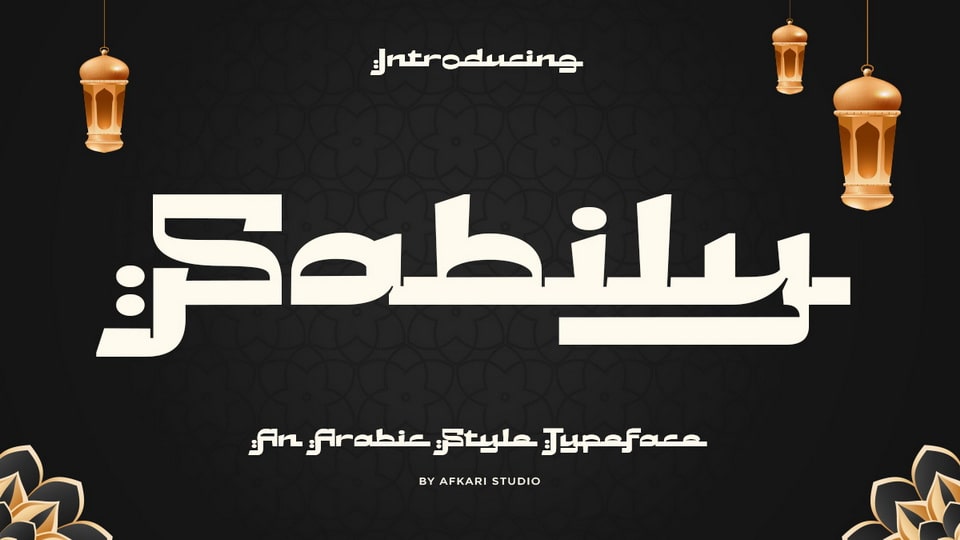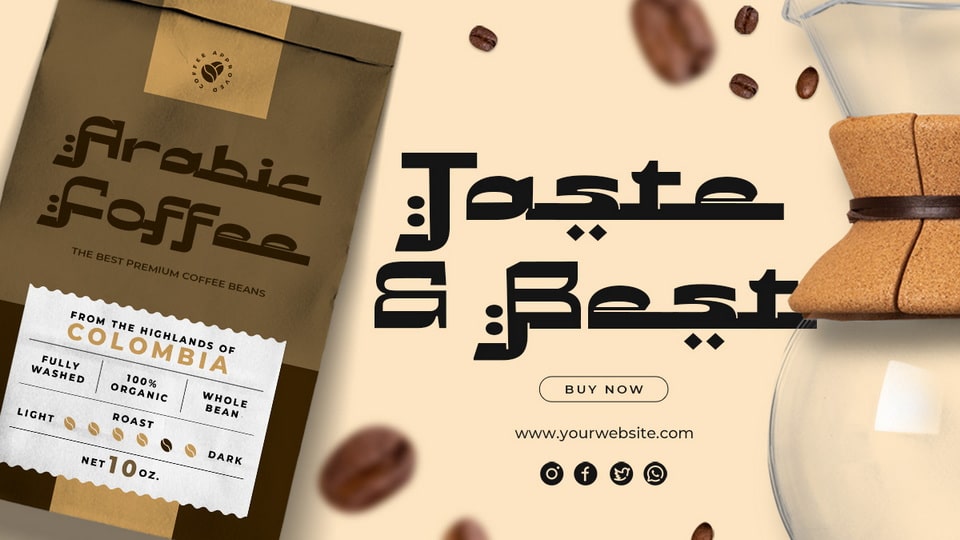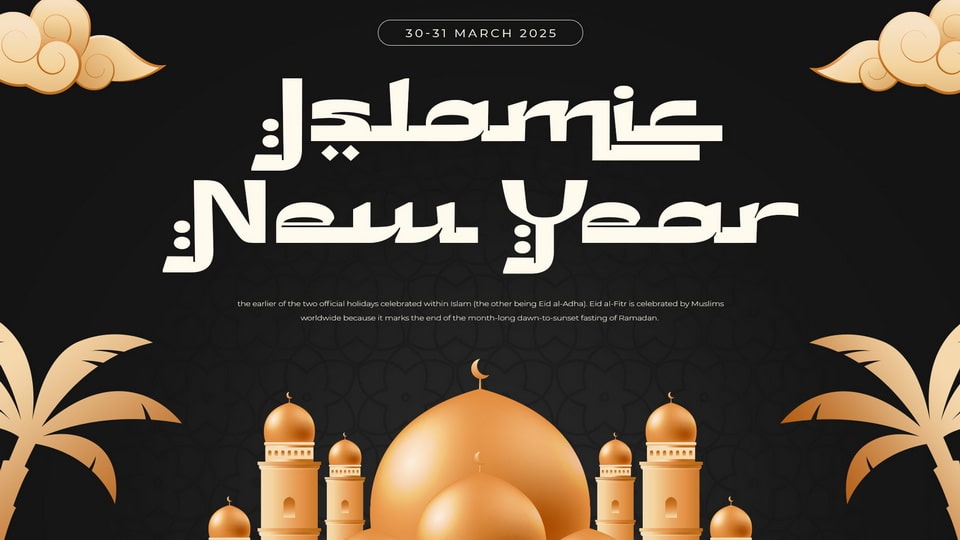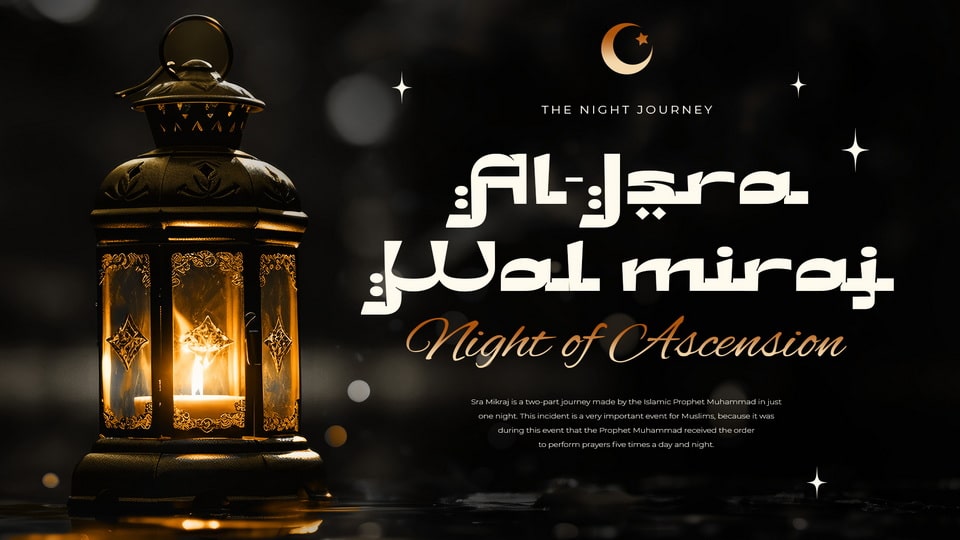
Sabily is a refined Arabic-style typeface that embodies the elegance and intricacy of traditional Arabic calligraphy. Designed to seamlessly blend classical aesthetics with contemporary functionality, Sabily offers a unique and versatile typographic experience. Its fluid curves and delicate details are perfect for capturing the beauty of Arabic script, while ensuring readability and clarity across various media. Ideal for both display and text use, Sabily enhances the visual appeal of any project, from editorial designs to branding and beyond.
With Sabily, designers can effortlessly infuse their work with a touch of cultural richness and sophistication. This typeface is not just a tool but a statement of artistic and cultural appreciation, making it an excellent choice for projects that aim to celebrate and honor Arabic heritage. Whether used in digital interfaces, print media, or creative graphics, Sabily stands out as a testament to the timeless allure of Arabic typography.